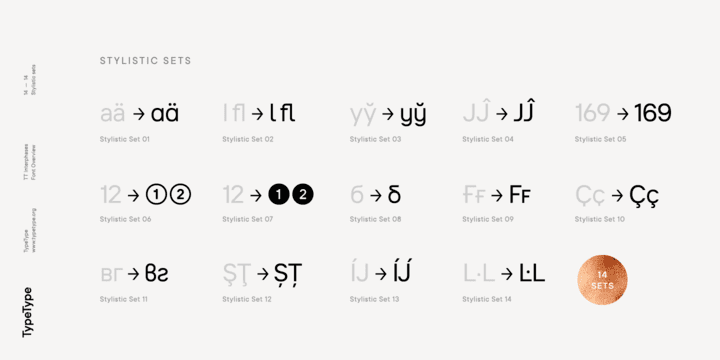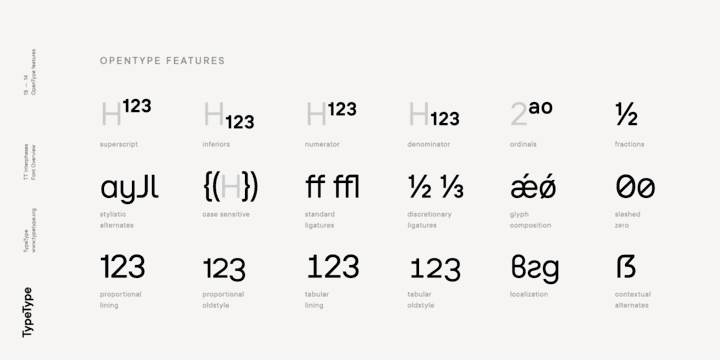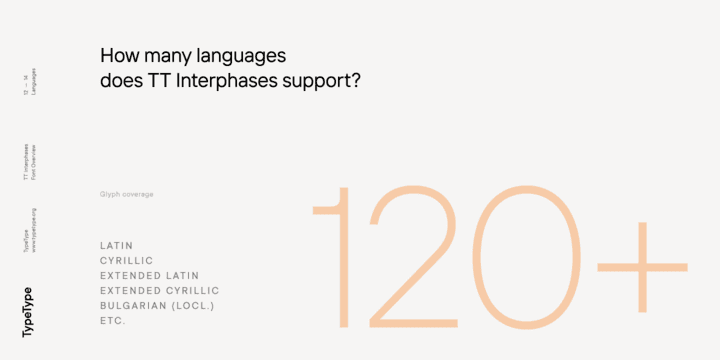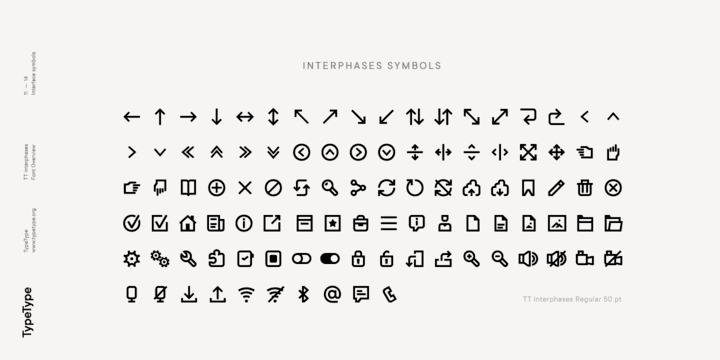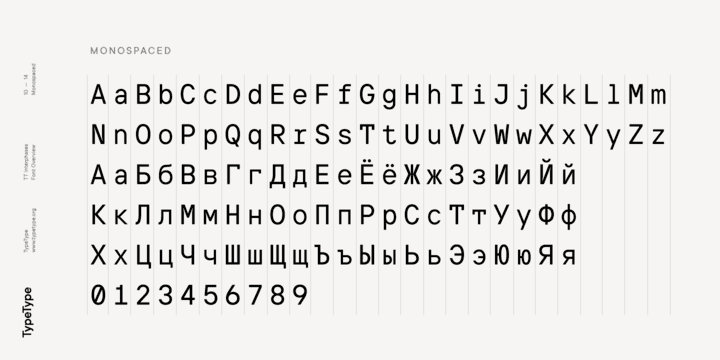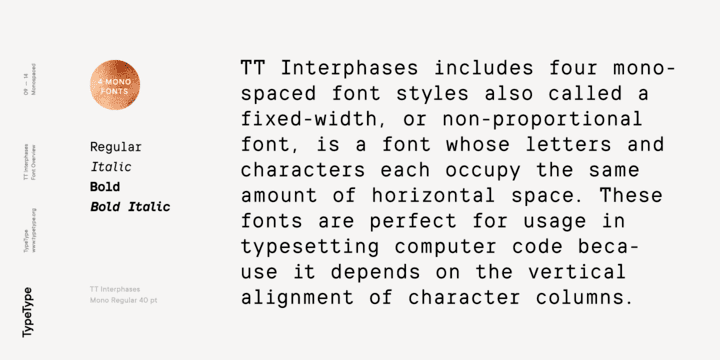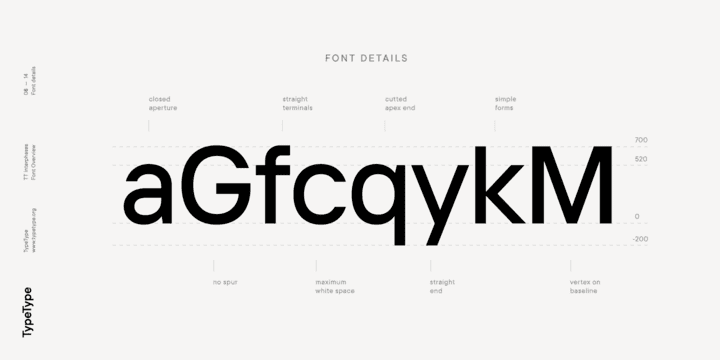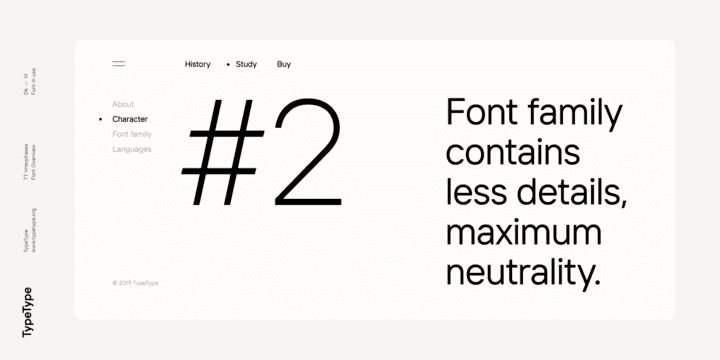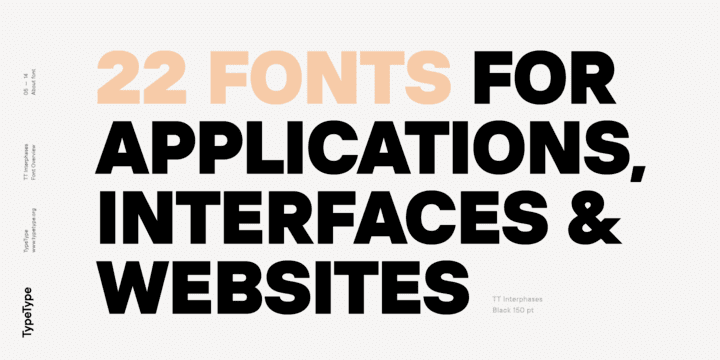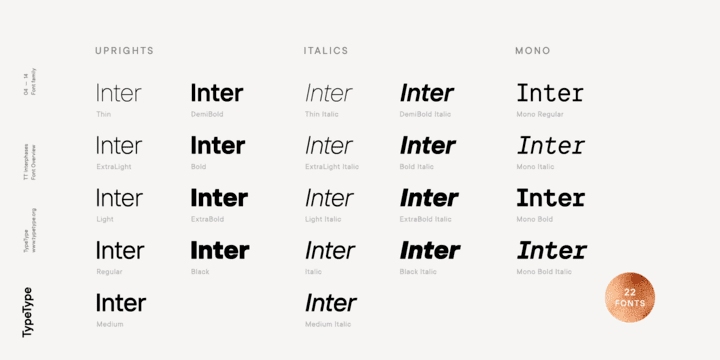
TT Interphases consists of 24 styles: 18 styles in the basic family, 4 monospaced fonts, and 2 variable fonts. The main visual features of TT Interphases include the open aperture of the characters, the uniform distribution of white and black, as well as excellent readability. The general neutrality of the font pattern is not without elegance, and all the details of the typeface are made with mathematical precision and love. In addition, TT Interphases has the most advanced manual TrueType hinting.
The basic TT Interphases family consists of 18 styles (9 weights and 9 obliques), in each of which there are more than 930+ glyphs. In the typeface, you can find old-style figures, stylistic alternates, mathematical signs, as well as 100 universal icons divided into five thematic groups: basic actions, states, sections of the site, documents and folders, mobile interface. TT Interphases supports more than 180 languages based on extended Latin and Cyrillic, including Bulgarian localization. And especially for those who are invested into the subject, we made two variable styles (upright and oblique), which in their sign composition completely follow the basic set.
TT Interphases Mono is a complementary family of 4 styles (2 upright and 2 obliques), each of which consists of 740+ glyphs. We intentionally changed the sign composition of the Mono subfamily—we added special characters to the encoding and removed everything that was not needed (for example, ligatures). Although Mono borrowed the basic style-forming aspects of the main family, for example, the openness of the aperture or the degree of rounding of the circles, but due to the monospace, it adds some of his own character. First of all, this difference can be found in the changed design of signs, in noticeable visual compensators, as well as in italics, whose design is made in a more humanist way.